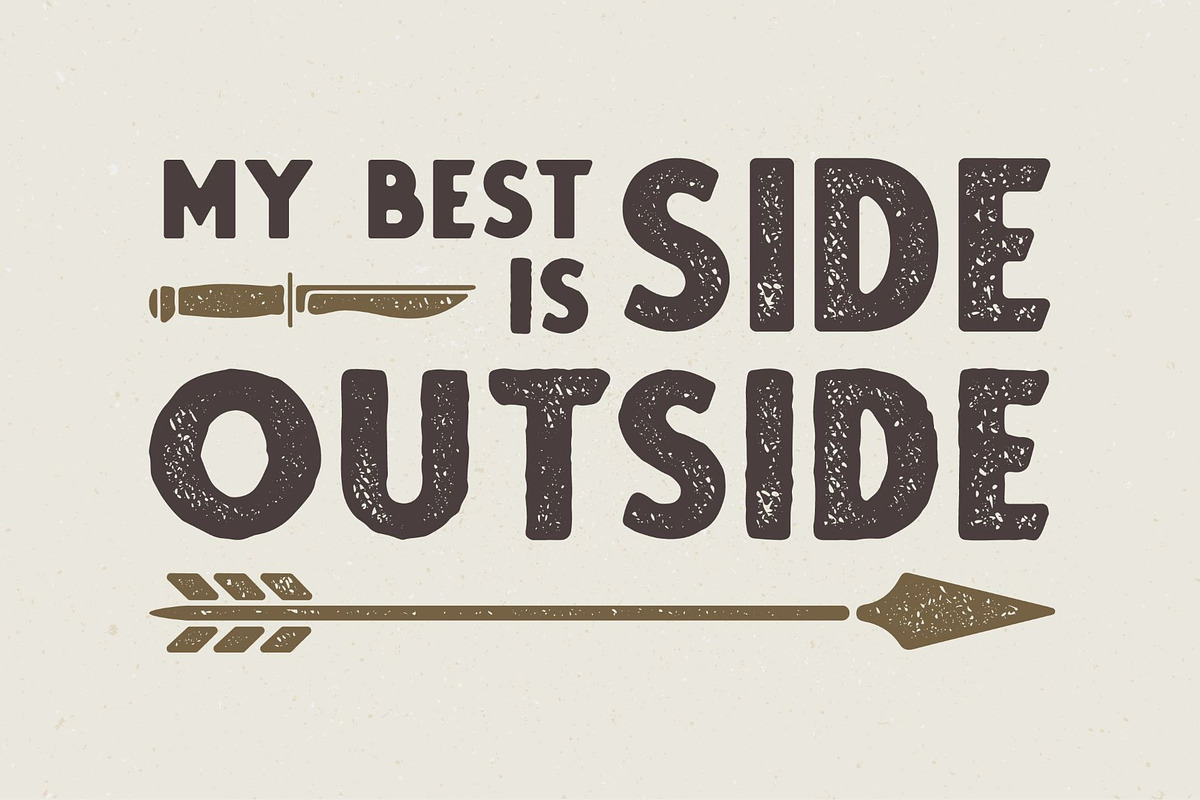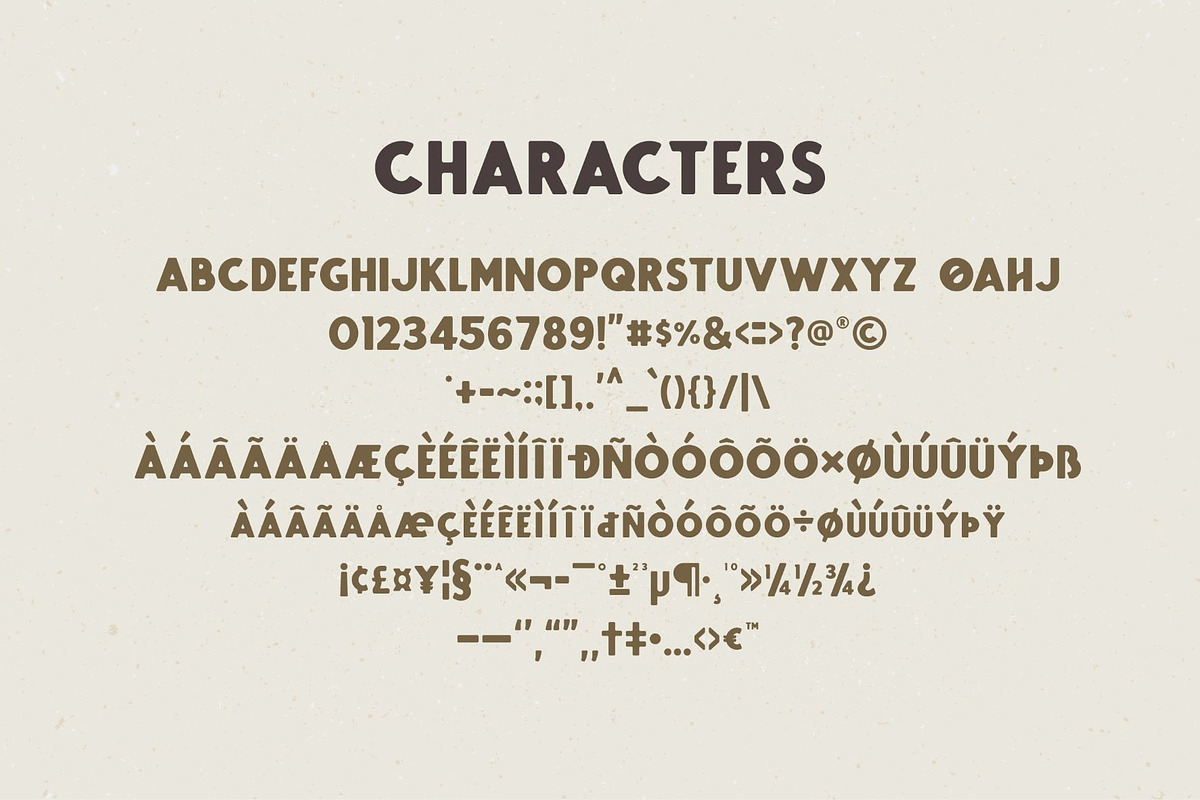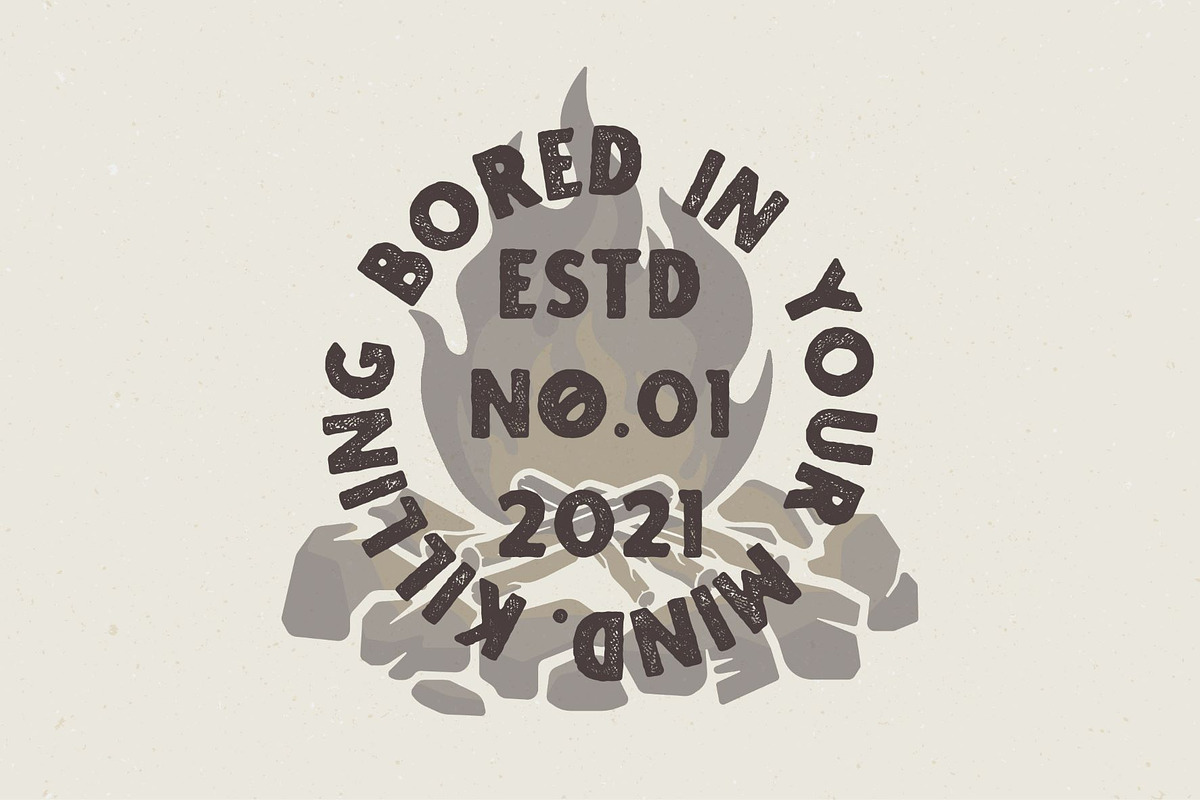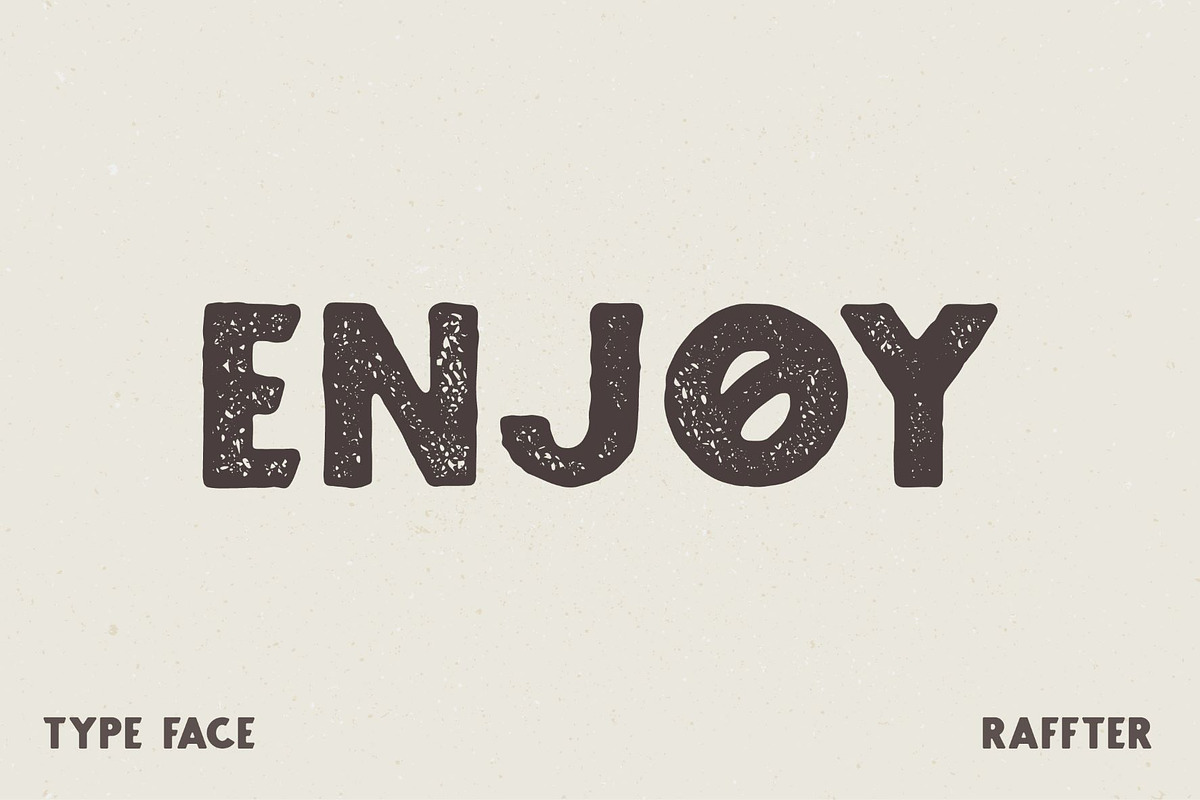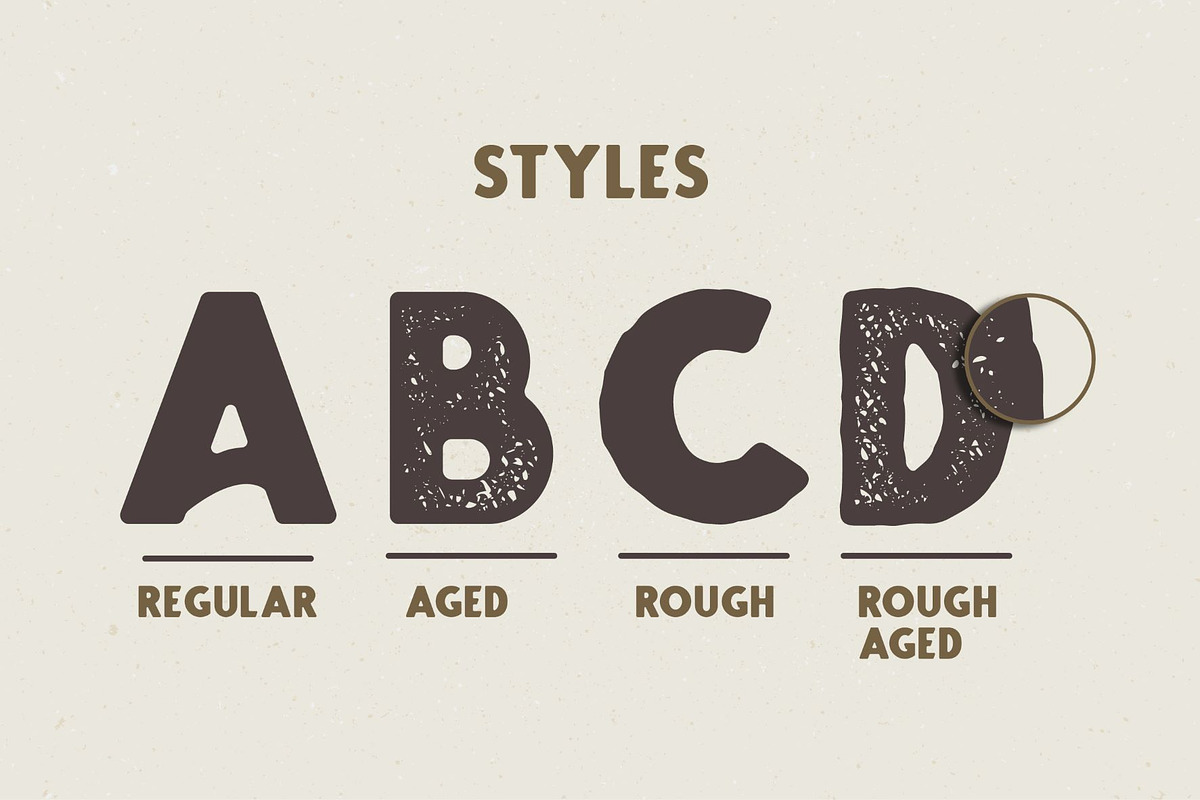
RAFFTER Sans Serif
RAFFTER is a font that has classic, bold and antique characters, and its rough appearance gives the impression of old school, antique and adventurous plus 4 styles that make this font complete to be applied in themes that smell antique, old school, coffee or others.